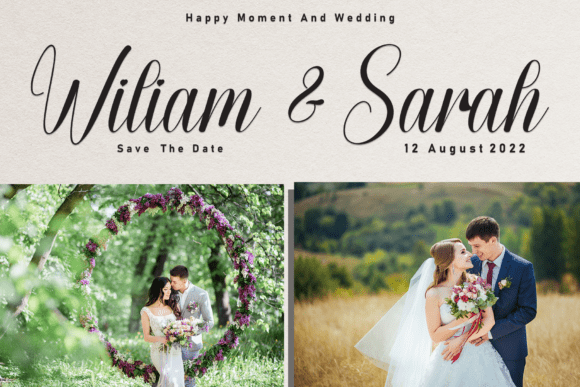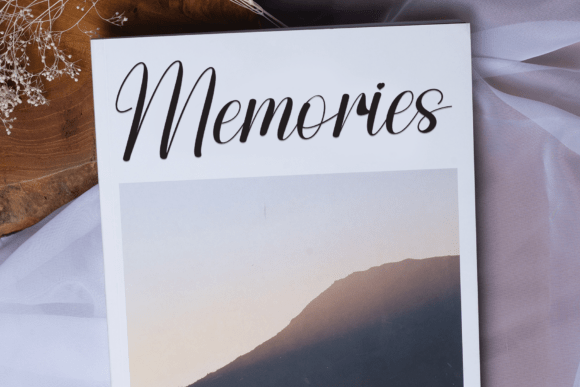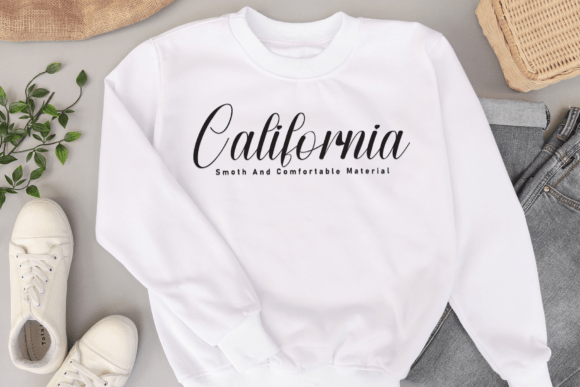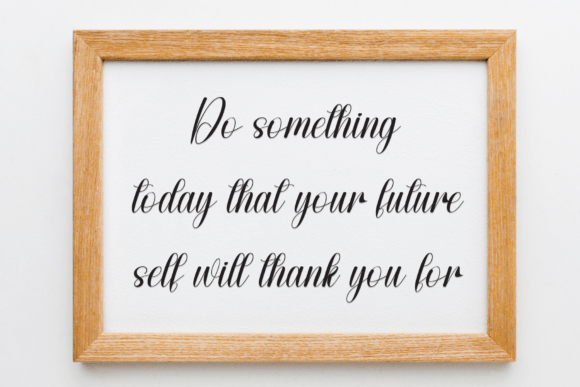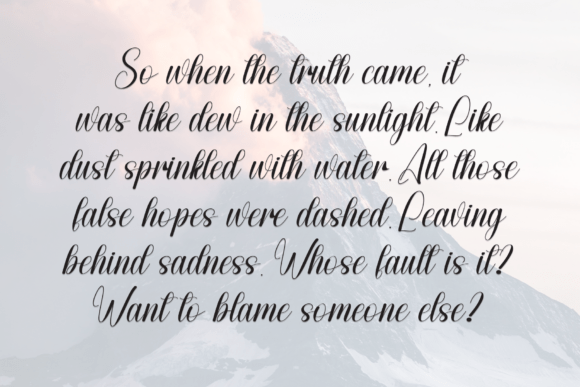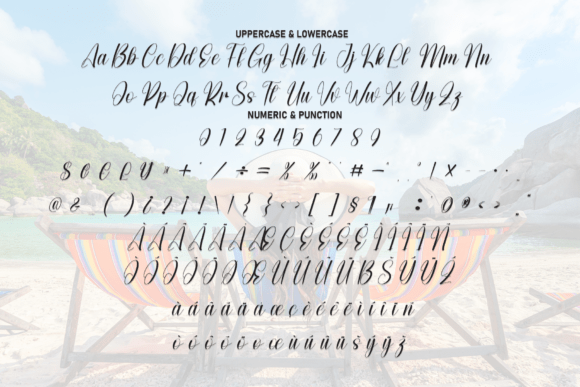
Find Your Perfect Script: Unlocking the Joy of Holiday Font
There’s nothing quite like the thrill of discovering a new font that speaks to your creative soul. For me, it was the moment I stumbled upon Holiday Font – a handcrafted script font that exudes warmth and charm. As I delved deeper into its curves and lines, I knew I had found the perfect companion for my next design project.
With Holiday Font, you can effortlessly infuse a sense of playfulness and joy into your designs. Whether it’s a wedding invitation or a personal note card, this font adds a touch of whimsy and delight that’s sure to capture the hearts of your audience. As a designer, you’ll appreciate the versatility and value that Holiday Font brings to your creative endeavors.
Holiday Font Key Features
- Unique Characteristics: The font features intricate, hand-drawn illustrations and ornaments, making it a unique choice for holiday-themed designs.
Holiday Font Review
I recently had the chance to work with the Holiday Font, and I must say it’s a mixed bag. ✨ One thing I appreciate is the festive and playful vibe it brings to any design project. The font’s unique character set and ornaments add a touch of whimsy that’s perfect for holiday-themed projects.
Another plus is the font’s flexibility – it comes in various weights and styles, making it suitable for a range of design applications, from titles and headings to body text.
While the Holiday Font has its charm, there are some limitations to consider:
- ⚠️ Limited language support: The font only includes characters for the Latin alphabet, which may be a problem for designers working with non-English text.
- ⚠️ Some characters may not render correctly in certain software: I encountered issues with the font’s ornaments and ornaments in Adobe Illustrator.
- ⚠️ Not suitable for serious or professional projects: The font’s playful nature may not be suitable for designs that require a more formal tone.
Overall, the Holiday Font is a fun and festive addition to any design project, but it’s not without its limitations. With some careful consideration and planning, it can be a great choice for holiday-themed designs.
For best results, use the Holiday Font in conjunction with festive graphics and colors to create a cohesive holiday theme.
The Holiday Font is ideal for creating:
- Holiday cards and invitations
- Seasonal social media posts
- Decorative holiday banners
- Christmas or New Year’s Eve party invitations
Remember to have fun and get creative with the Holiday Font to make your holiday designs stand out!